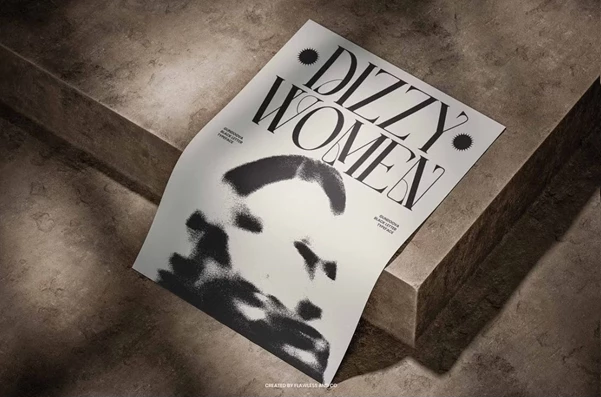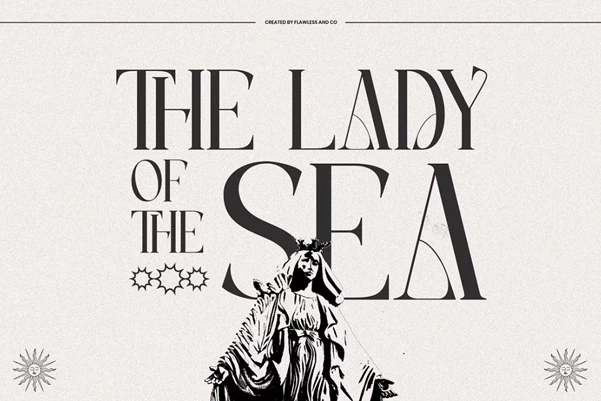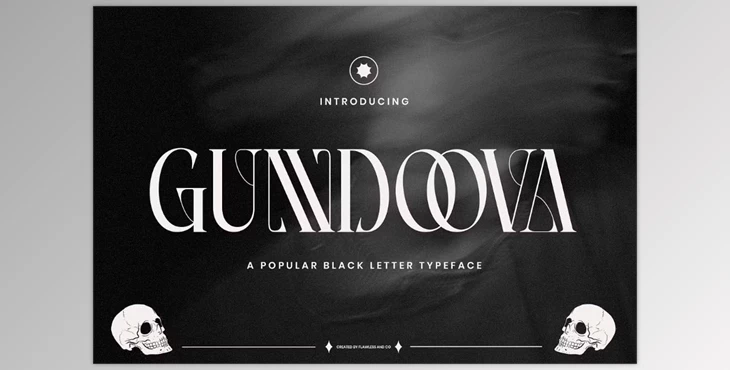
Gundoova - Blackletter Serif Font:
Gundoova is a jaw-dropping blackletter serif font with its roots etched in the gothic past. It's a modern reinterpretation. With complex details intricately worked into bold strokes, it captures the essence of medieval flair and is terrific for impressive logos and headlines designed with sophistication and vintage touch. Design a liquor label or create an identity for a heavy metal band fantasy—Gundoova's intensity balances well with sophistication. Noteworthy is this font's letterforms—shrouded in blackletter identity but also etched with balanced sculpting for distinct readability.
Some great features of Gundoova - Blackletter Serif Font:
- All Capital Letters
- Accent BLACKLETTER with MODERN touch
- Countless Sharper Ornamental Details
- Punctuation & Number Support
Gundoova will suit projects needing a touch of gothic, vintage, or rebellious attitude, such as streetwear and barbershop brands, album covers, and many more. Gundoova is ideal for bold brands who want to add power, tradition, and swagger to their designs.
Designed brands and logos using Gundoova will have a unique look accentuated with heritage and strength. This font will help creatives achieve high-impact wordmarks and logo designs where intricate lettering is needed. The most versatile font of modern times, Gundoova can bring authenticity and unrivalled style to a project that seeks bolder design ideas.
Select Gundoova for any design demanding powerful expressive blackletter typography and sublime creativity. It is ideal for logos, posters, merchandise, labels, and any other remarkable undertakings.